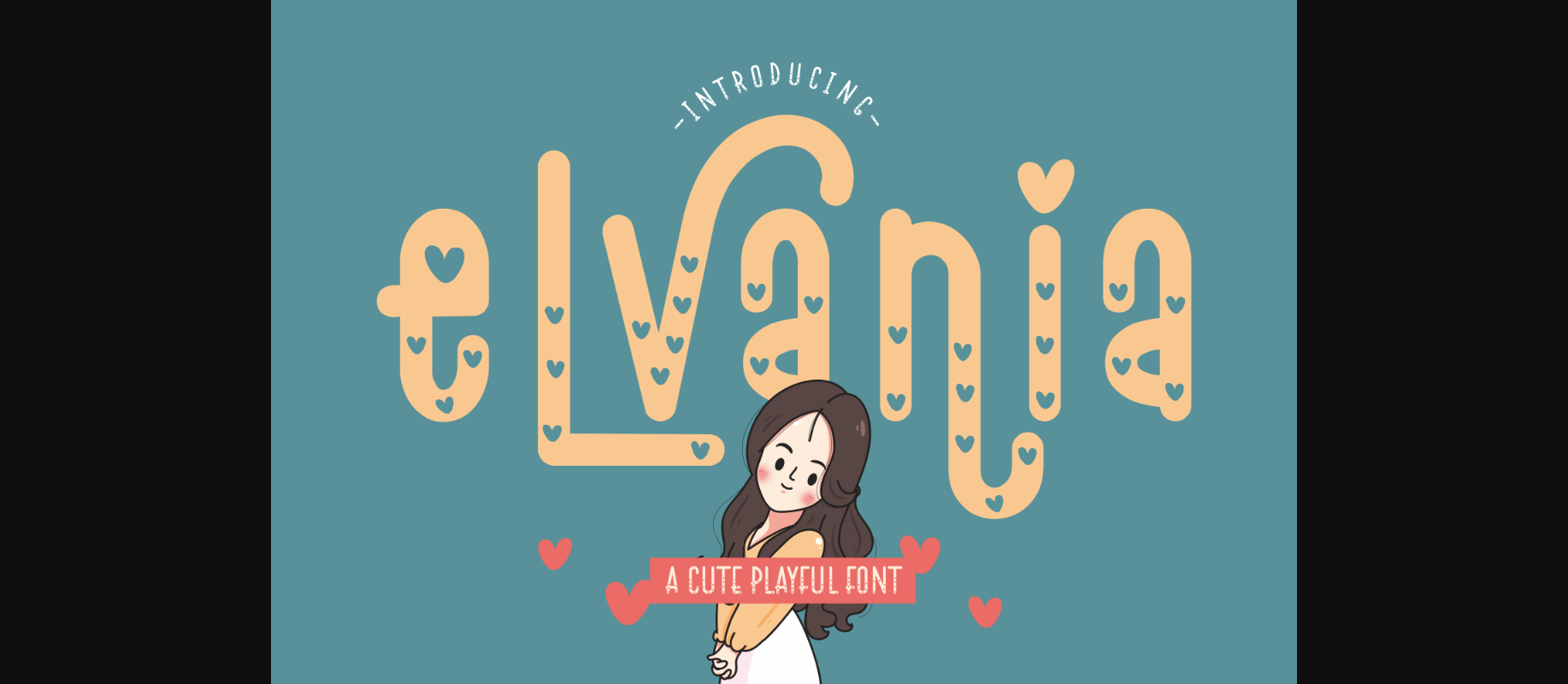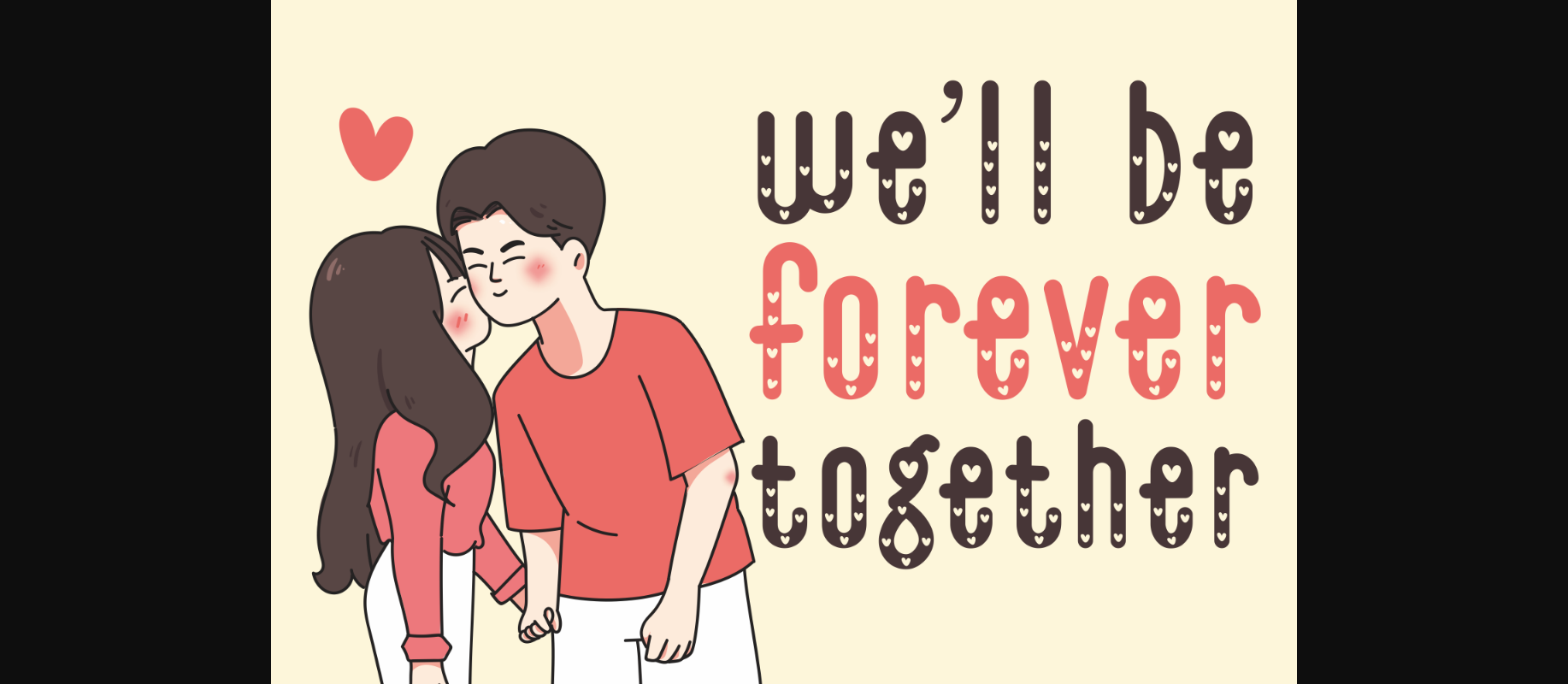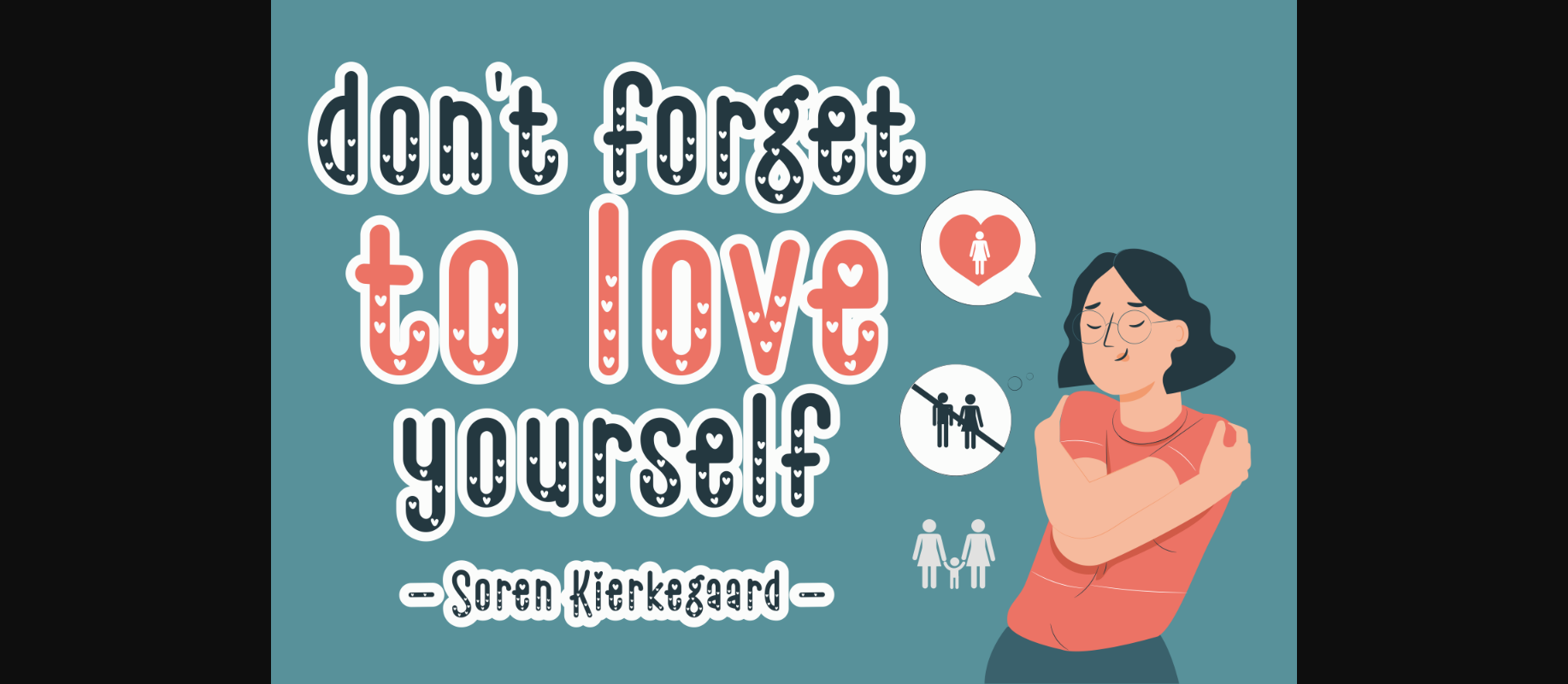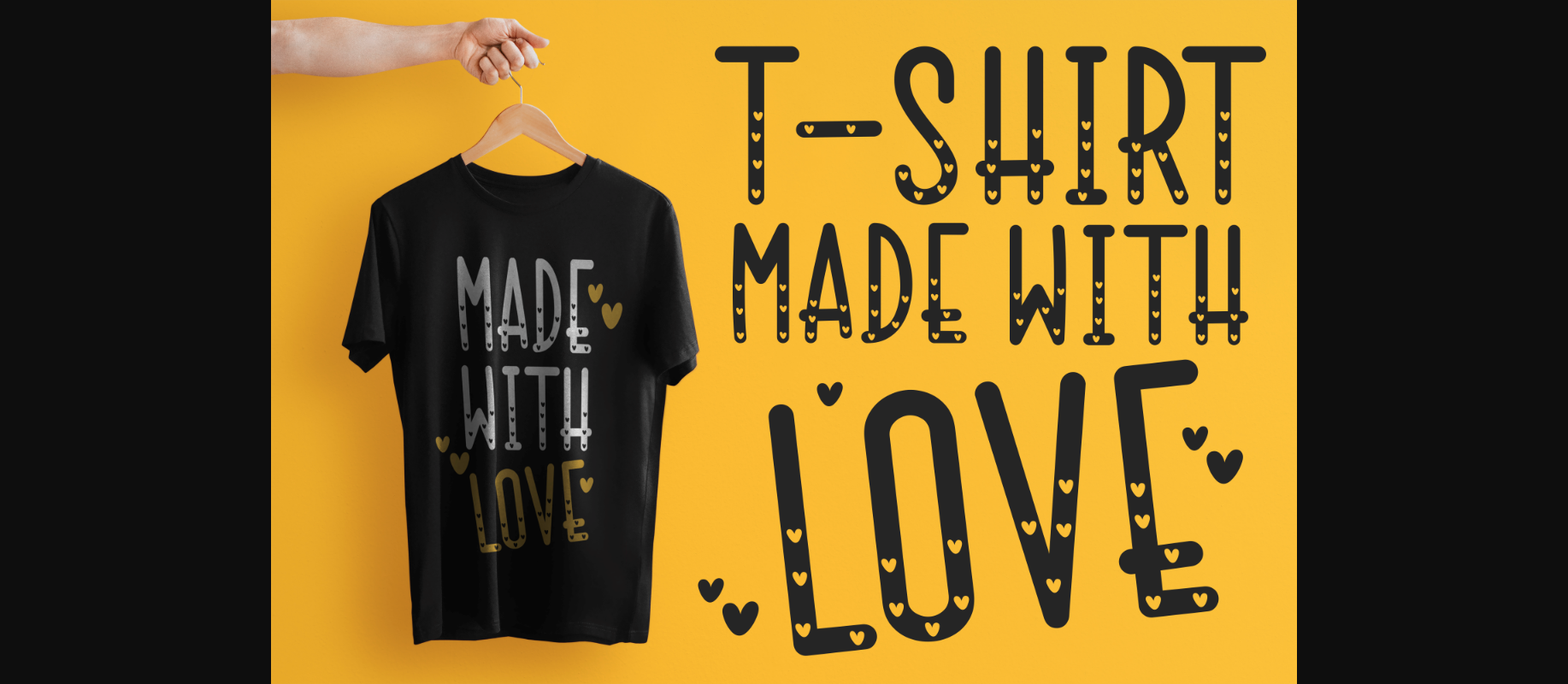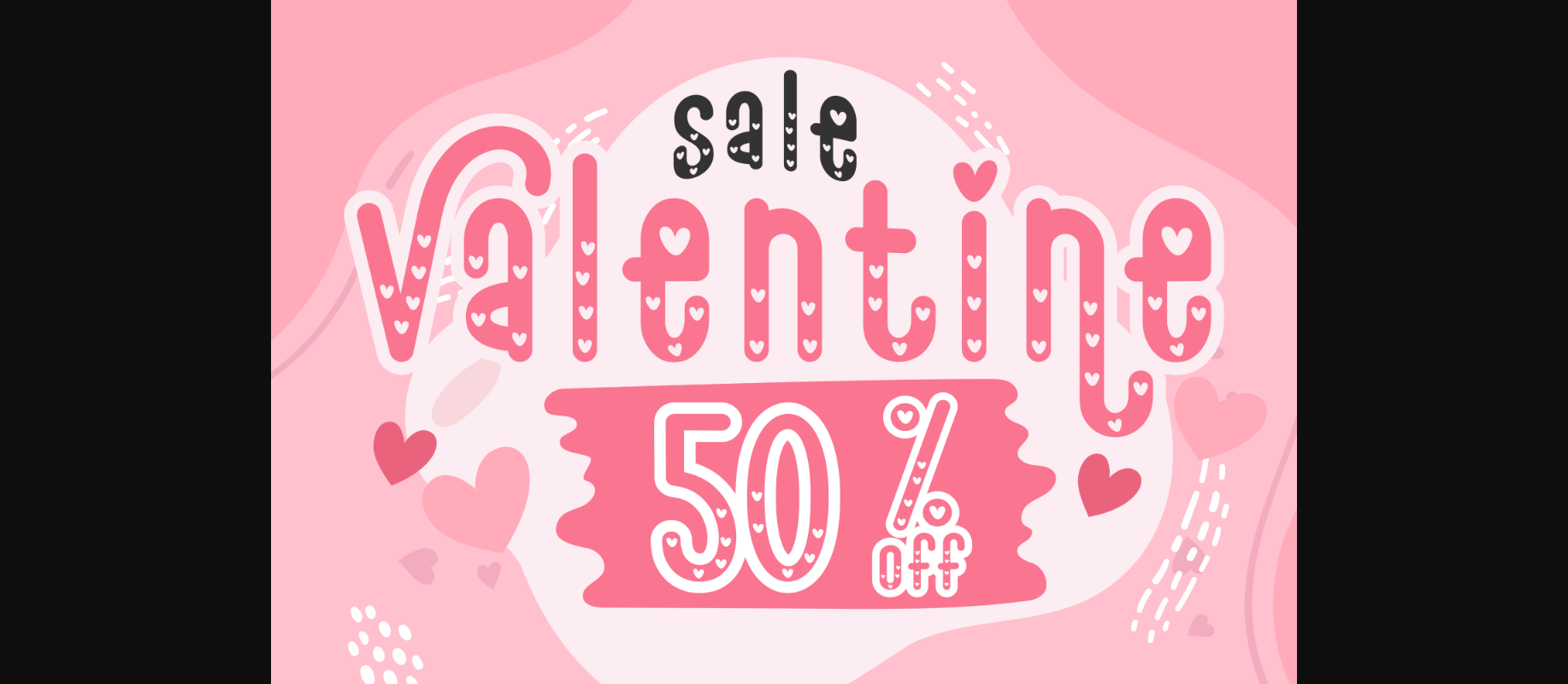
About Elvania Font
Elvania is a sweet decorative font that exudes love and happiness. Use it to complement your Valentine’s day designs, wedding projects, magazines, social media posts, or anything that needs a touch of love.